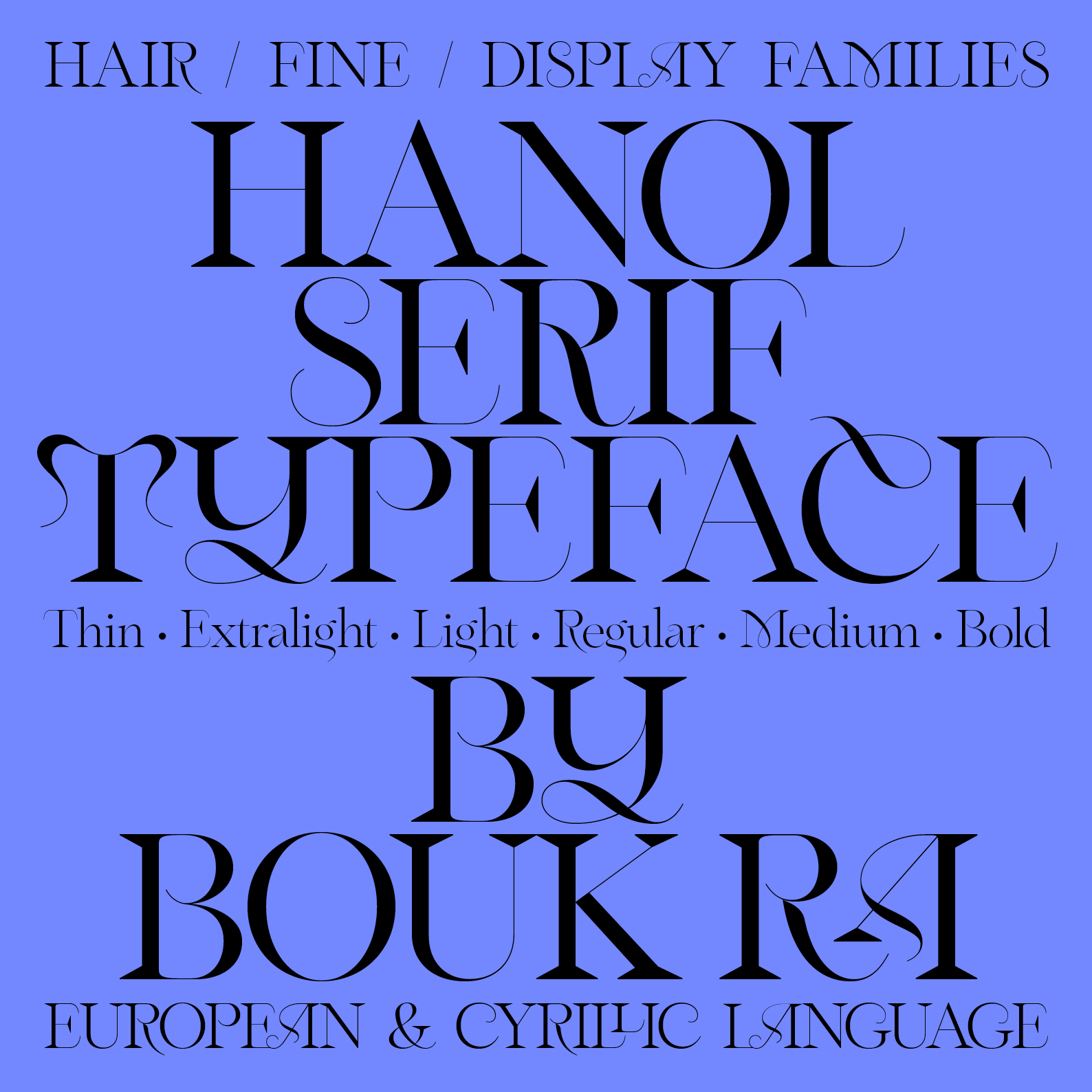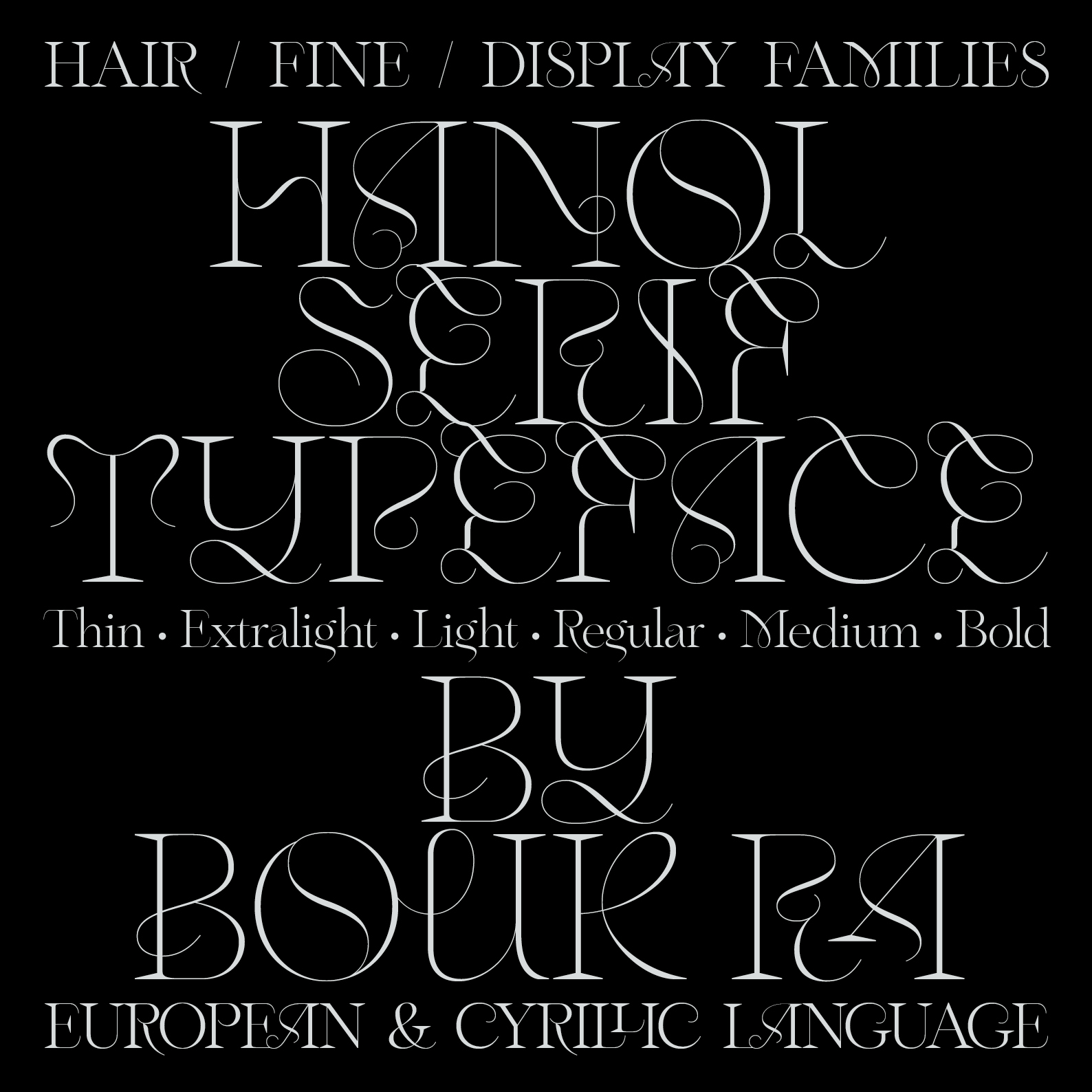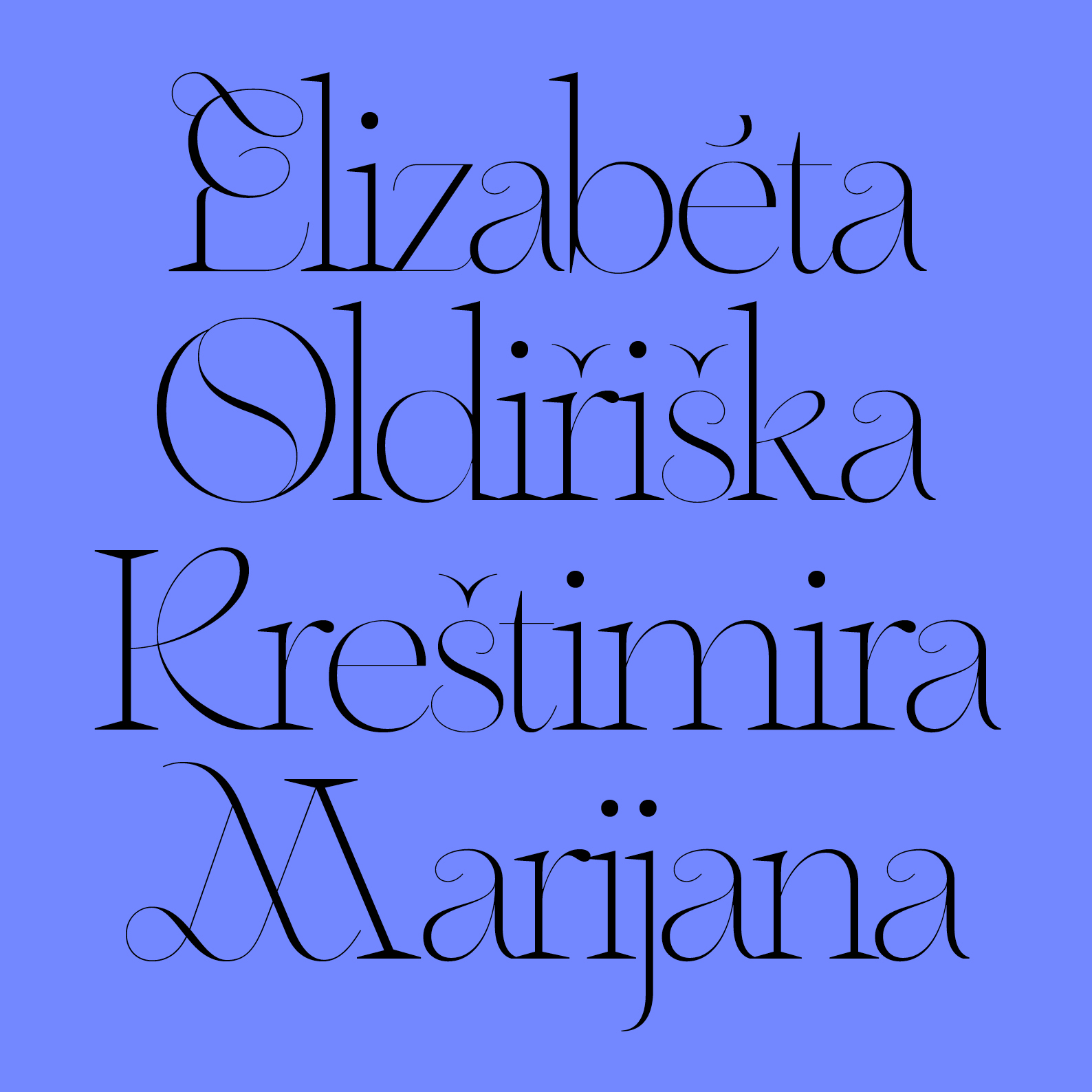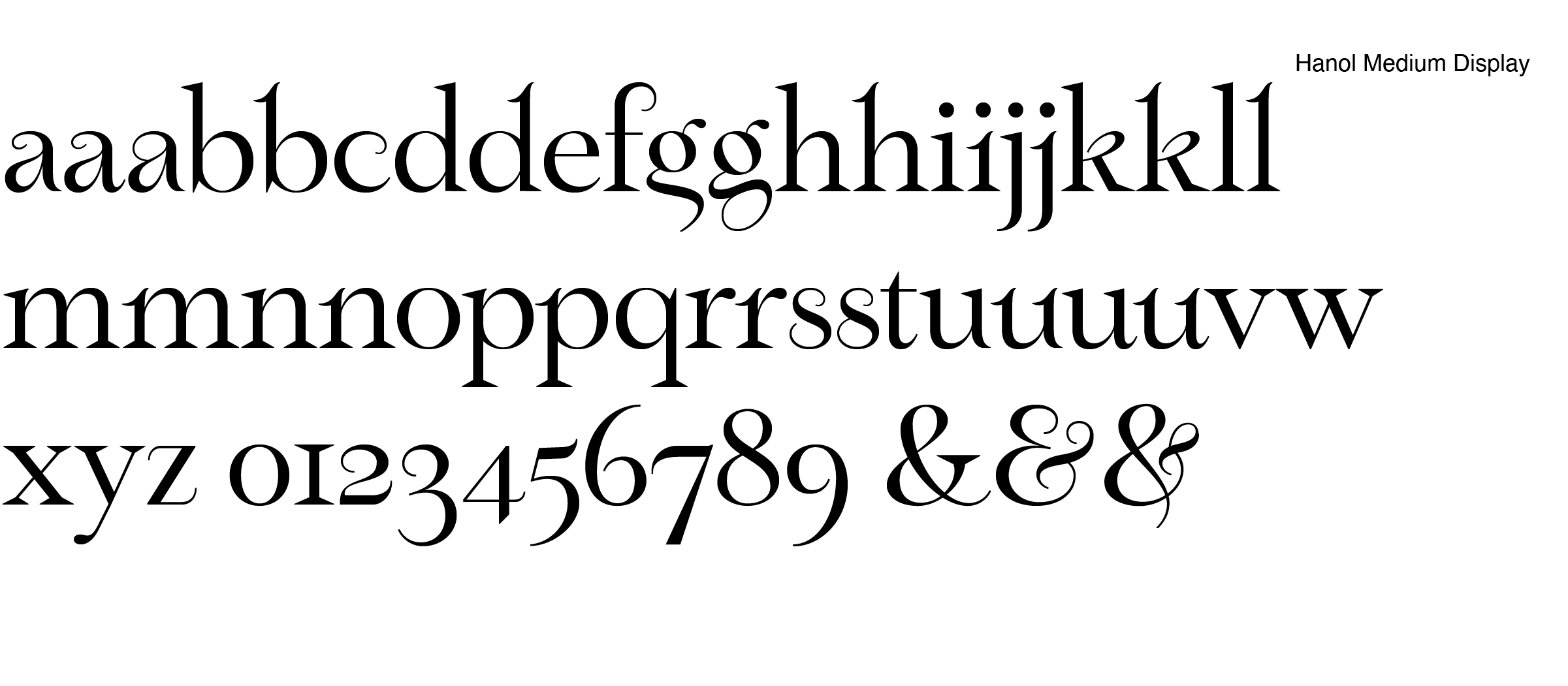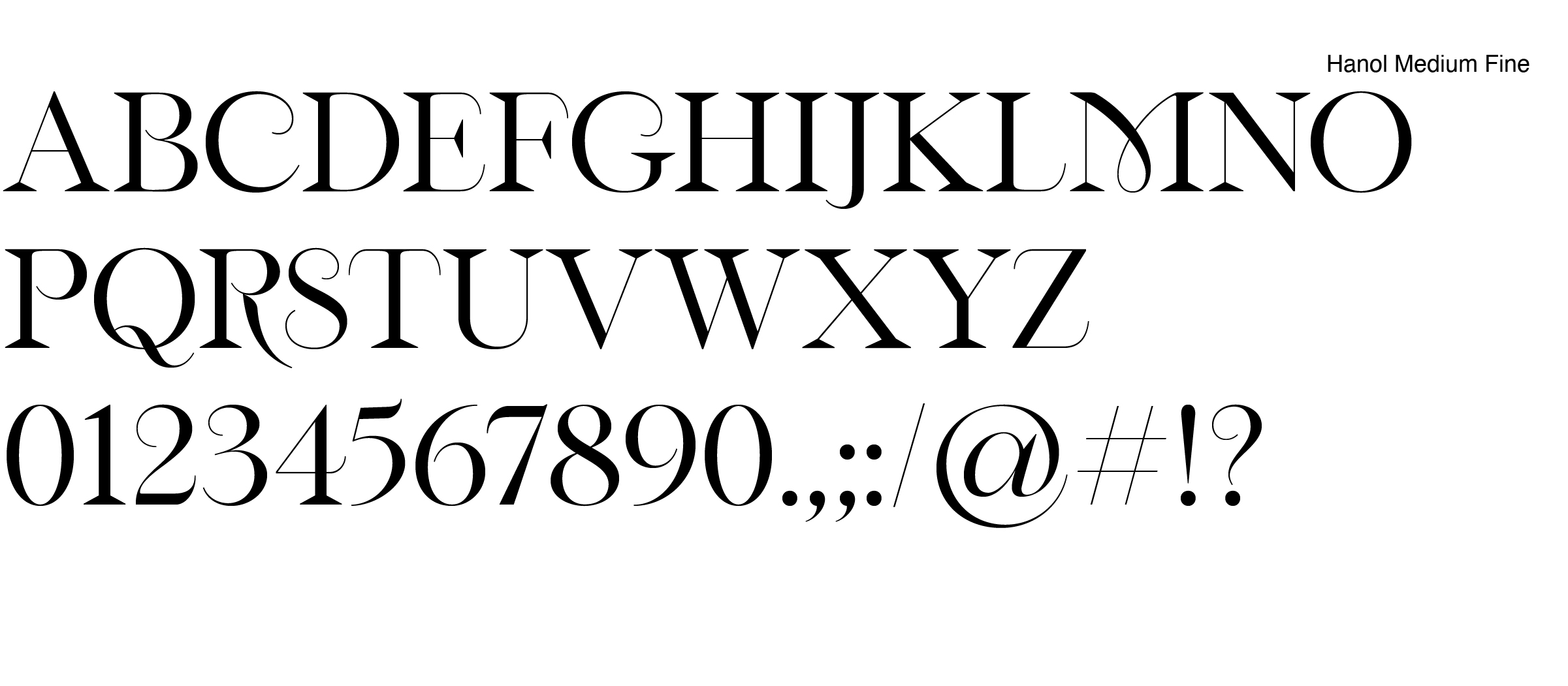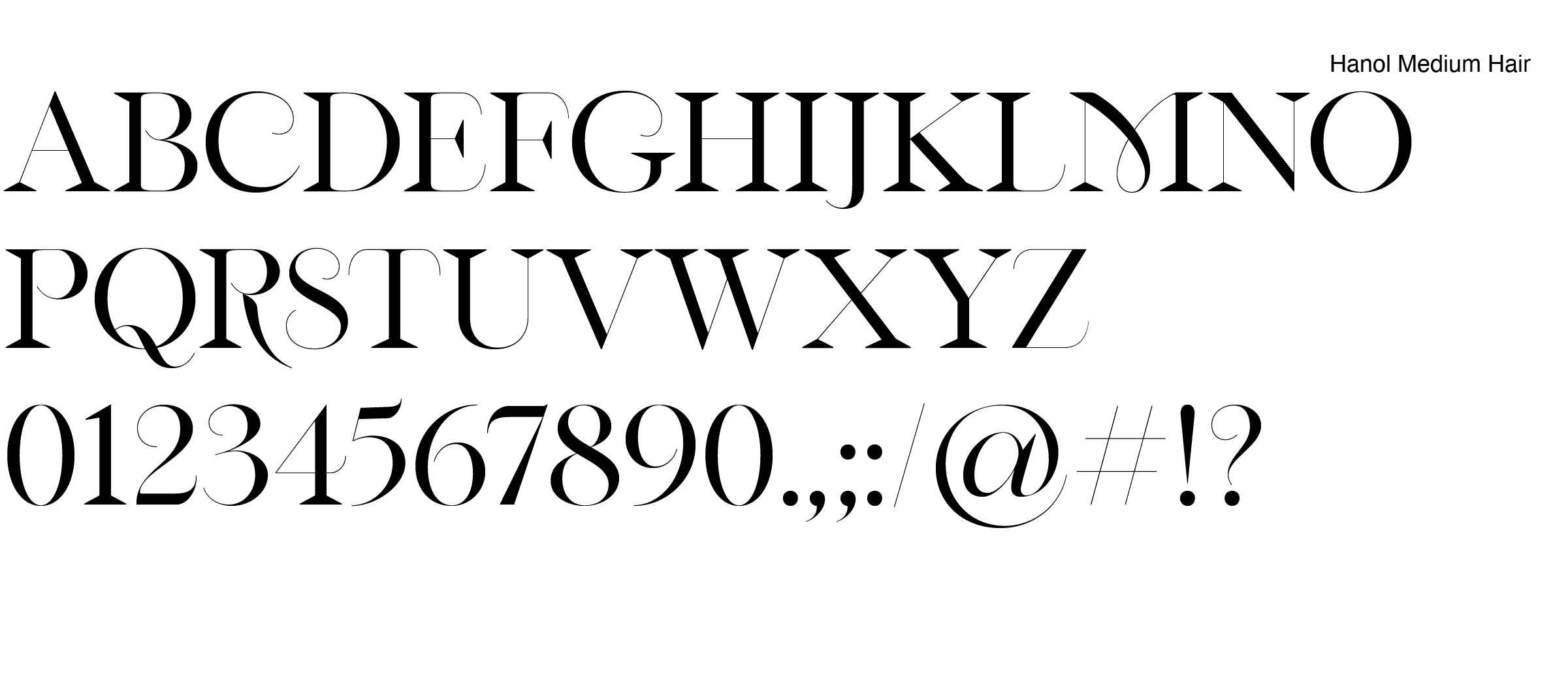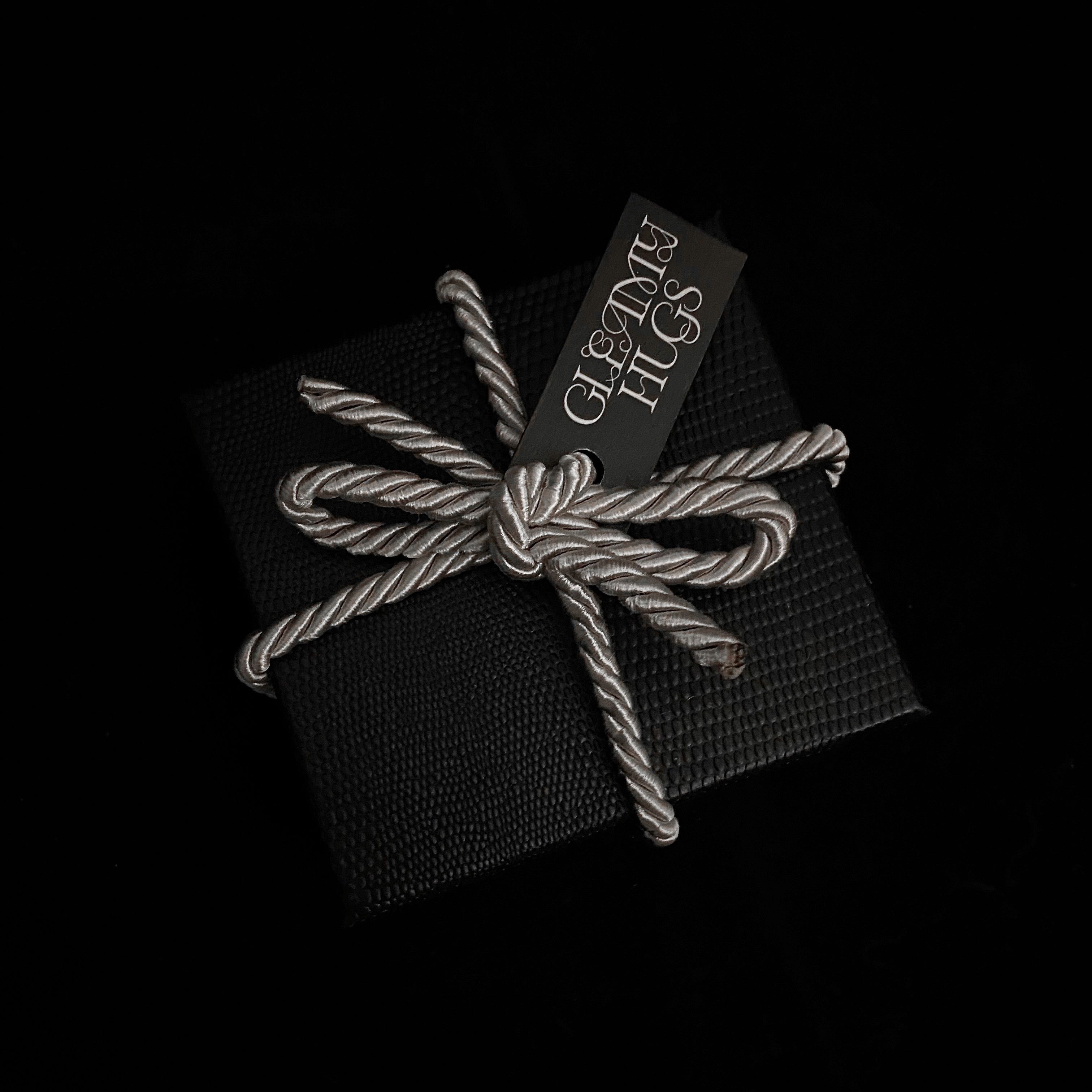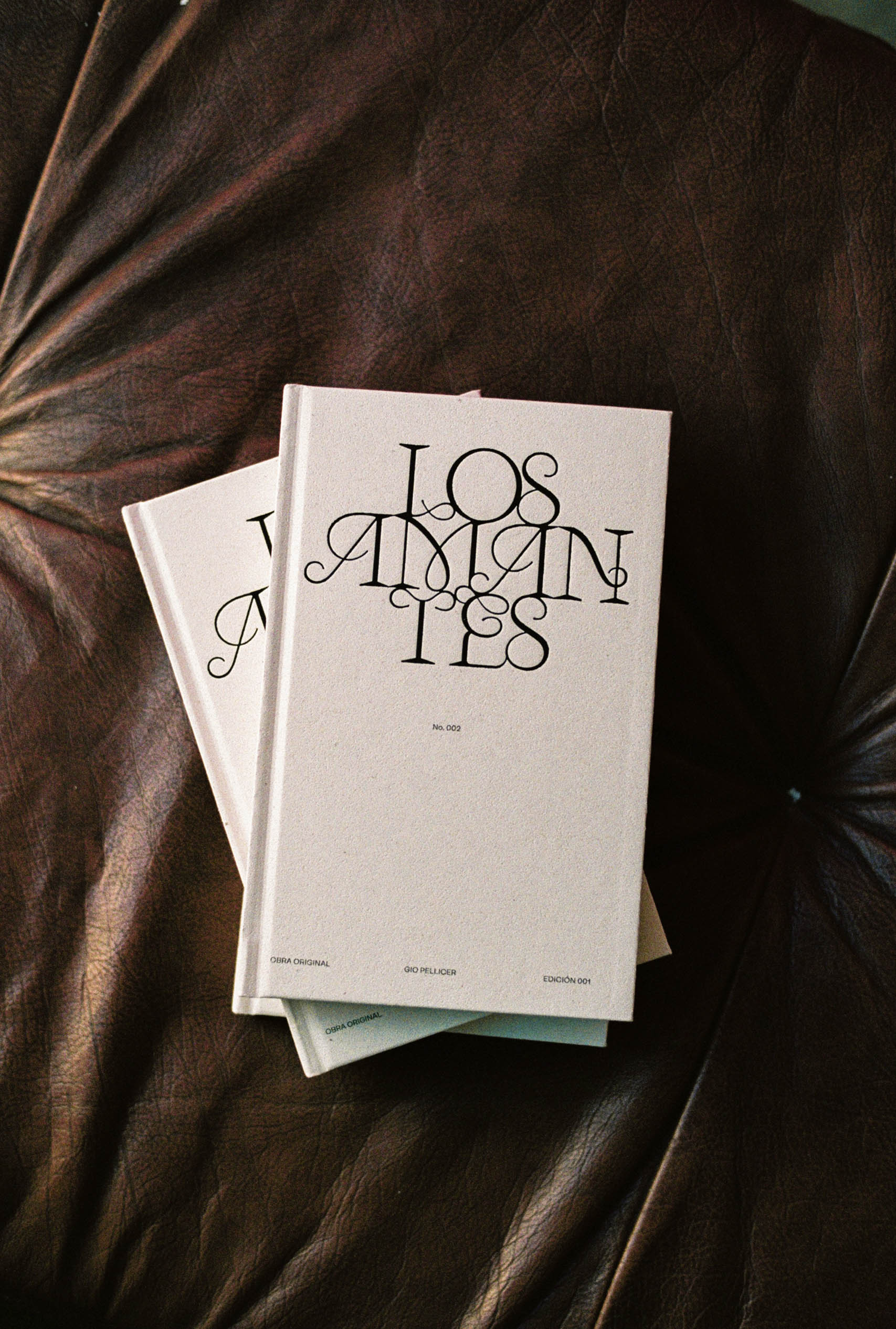
Typeface Hanol
Taking its namesake from a Korean word for a strand/thread or hair, Hanol is a typeface which emphasises the beauty of curves within the strands of letters. Inspired by the celestial robe of a fairy floating in the air in a traditional Asian fairy tale, Hanol has a light and lively atmosphere.
Hanol LIGHT/MEDIUM